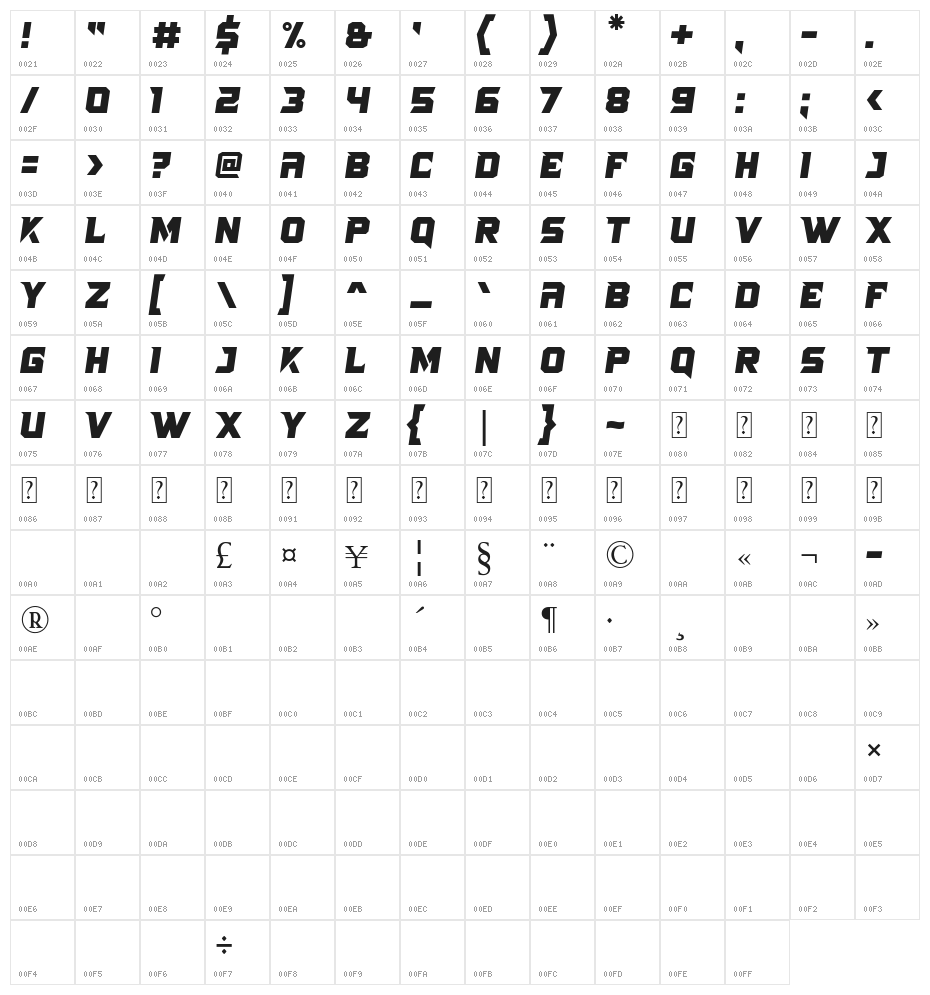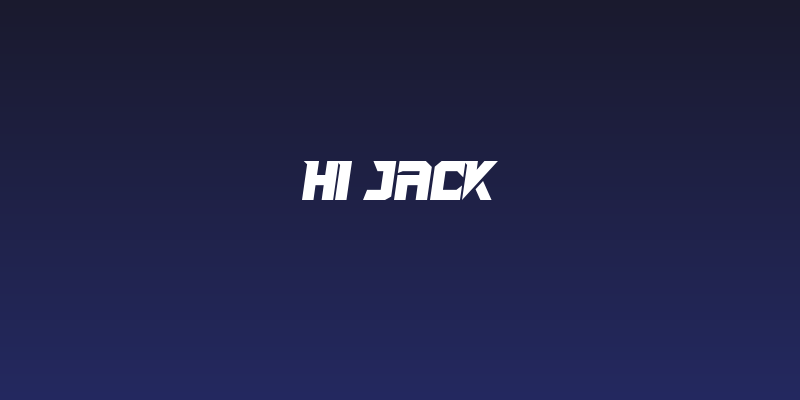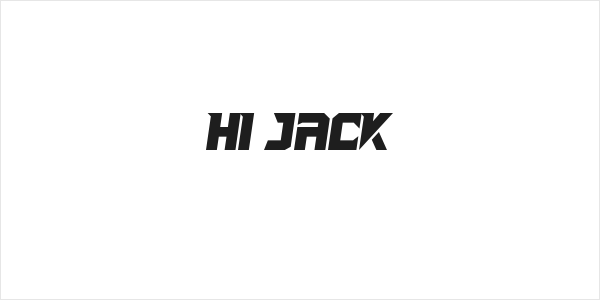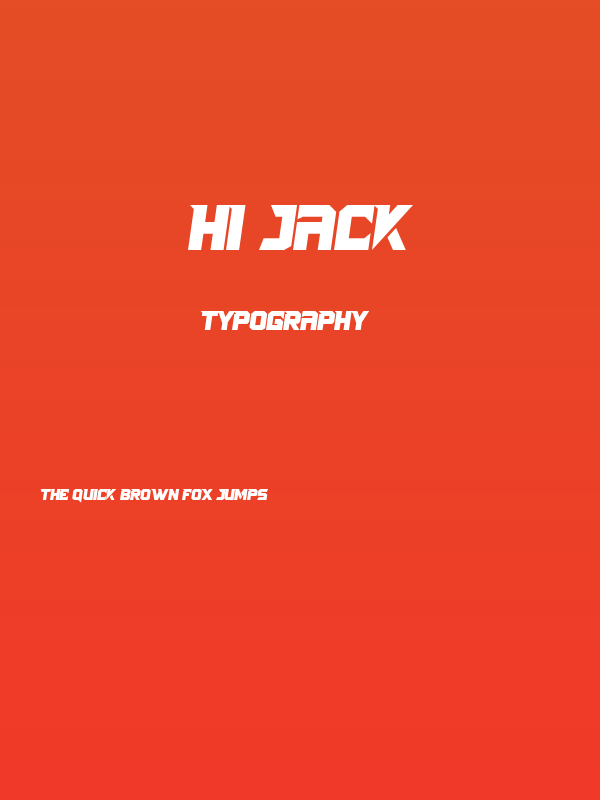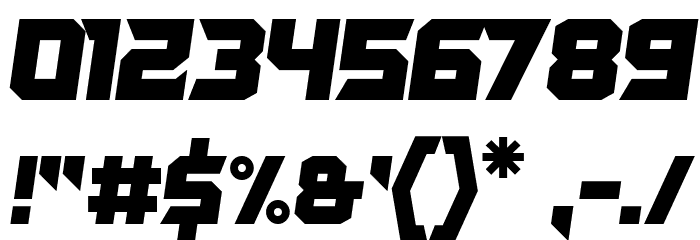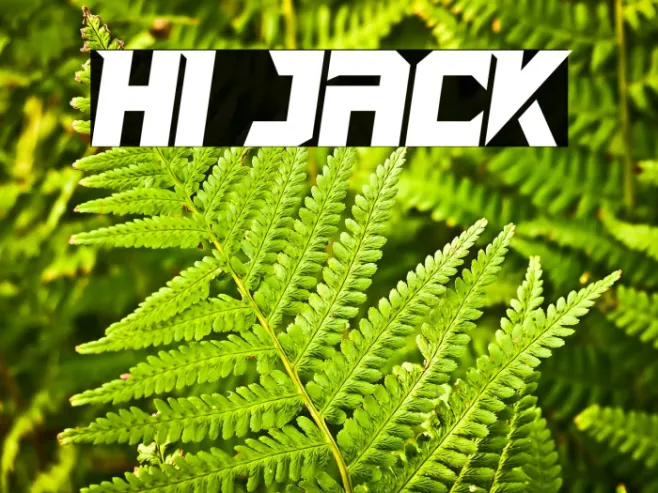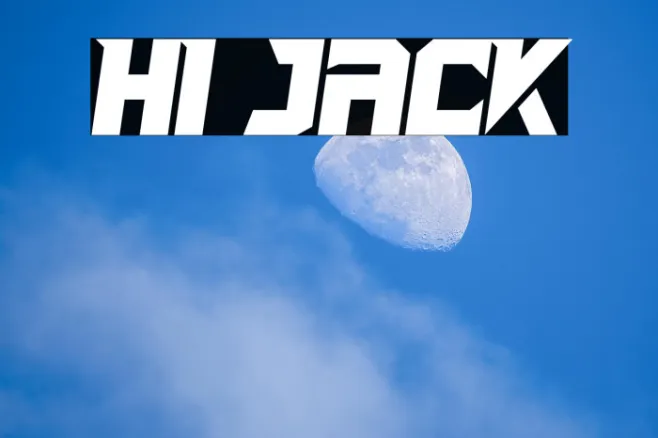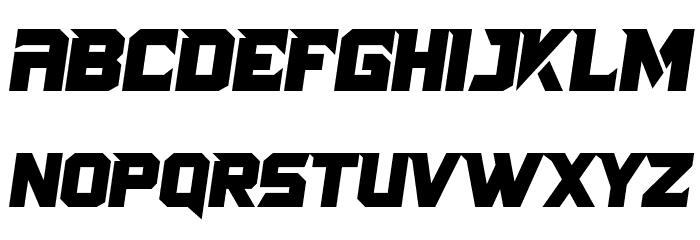
Hi Jack Font
Hi Jack Description
This font features a bold and dynamic design with sharp, angular edges and a futuristic aesthetic. The characters are heavily stylized, with a distinct geometric influence that gives them a unique, edgy appearance. The uppercase and lowercase letters maintain a consistent style, with the lowercase slightly smaller but equally bold. Numbers and special characters follow the same design principles, ensuring uniformity across all glyphs. The font's aggressive and modern look makes it stand out, ideal for projects that require a strong visual impact.
HI-JACK UPPERCASE
HI-JACK LOWERCASE
HI-JACK OTHER CHARS